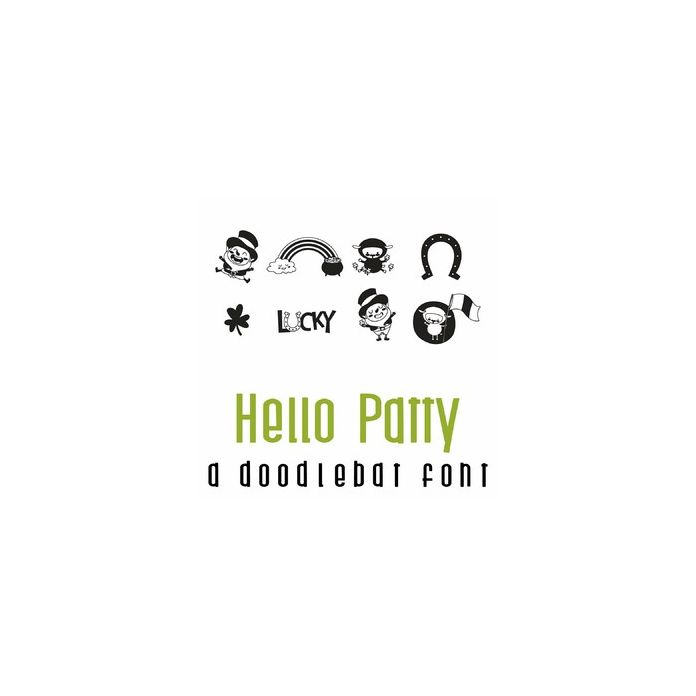
This fun doodlebat font features 26 images perfect for St. Patrick's Day. Perfect for cards, crafts, gifts, decor, scrap book pages, planner stickers and more!